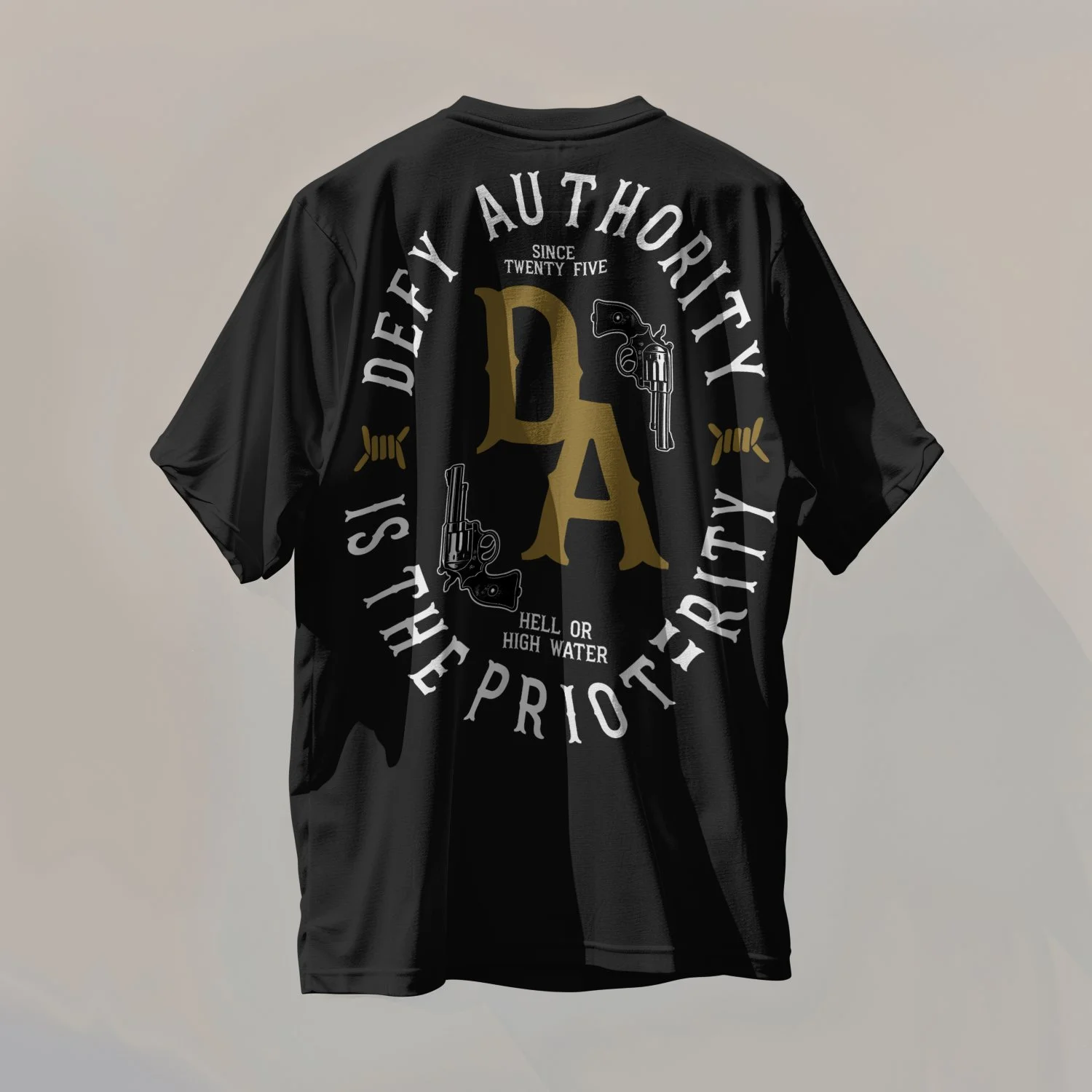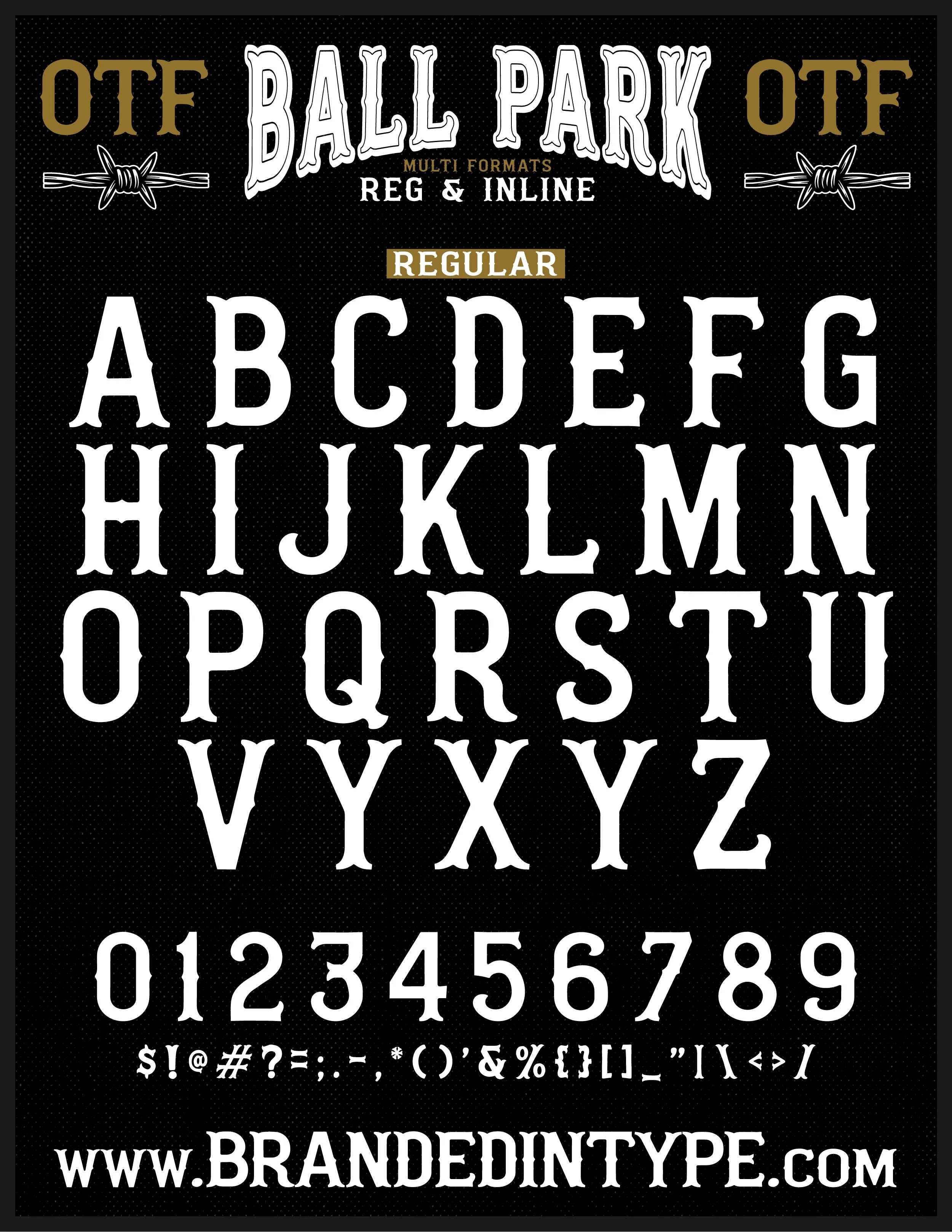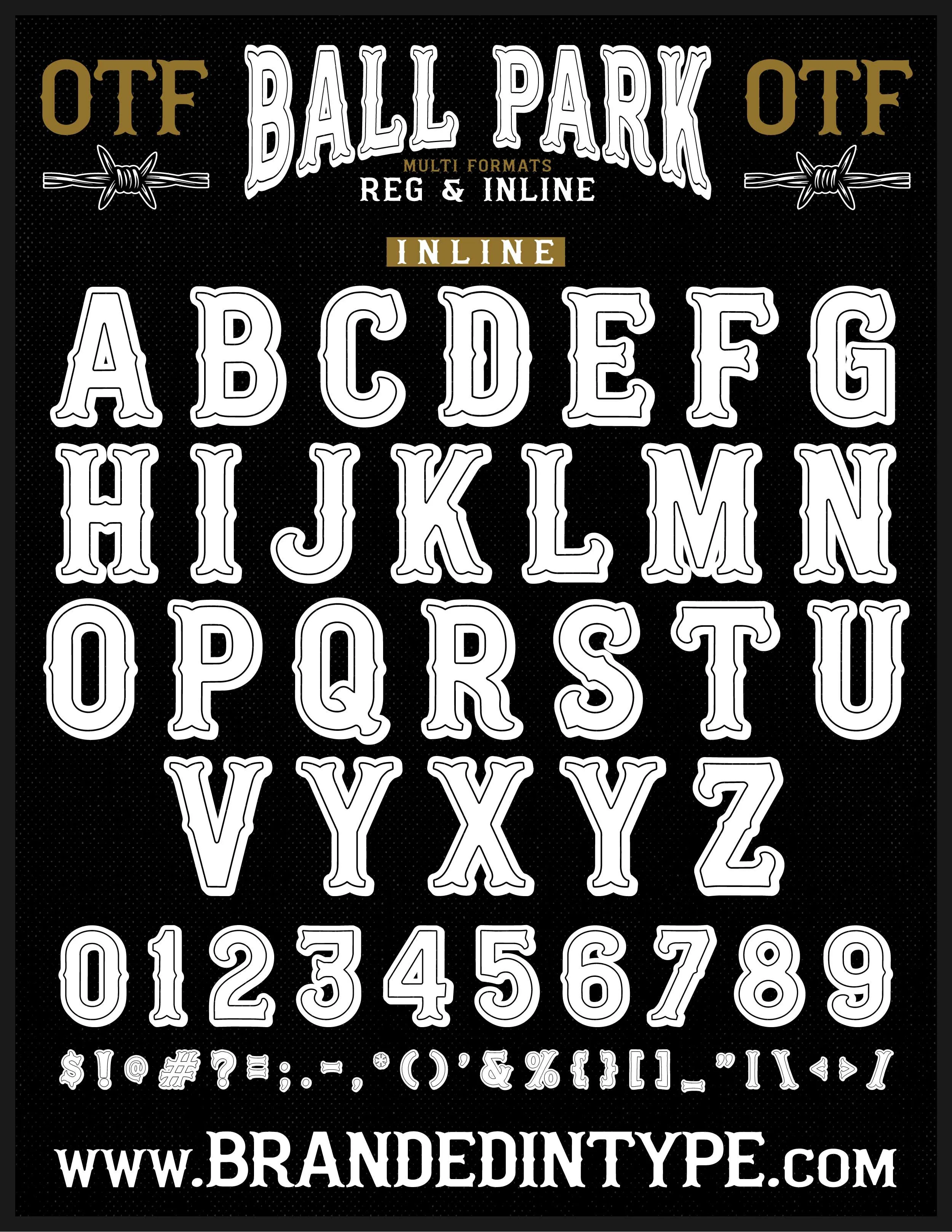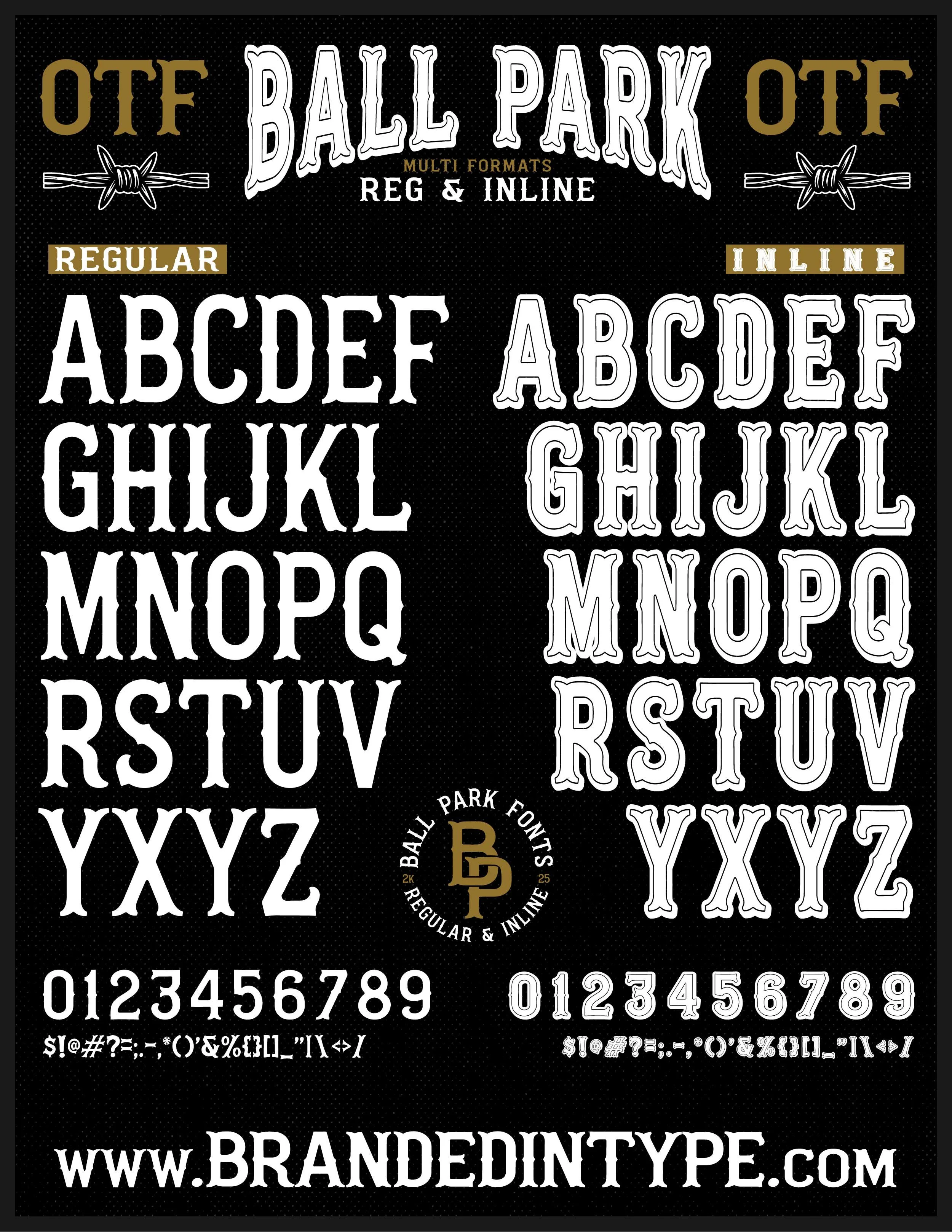
BALL PARK FONT - Duo Set
The BALL PARK FONTS Duo Set is a real bang for the buck. As it includes multiple formats in all letters, numbers, symbols, uppercase, lowercase, in both Regular, & Drop Shadow Inline! Perfect for Edgy Streetwear Brand Logos, Sports Designs with an edge, or just bad ass T-Shirt designs, badge designs, easy to make monograms and whatever else you can dream up.